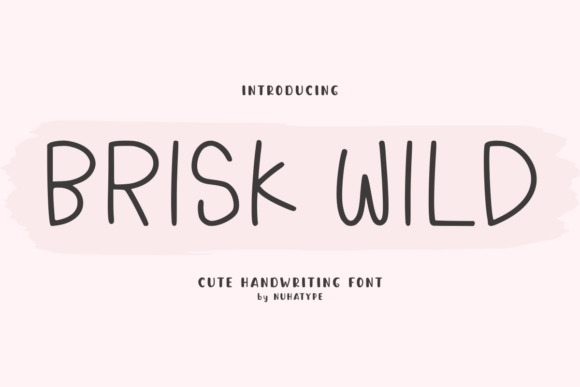
Embracing the Joy of Handwritten Design
Have you ever been working on a creative project, and the perfect font just slips away from you? You envision a warm, friendly, and natural look that captures the essence of your handmade masterpiece. That’s where the Brisk Wild Font comes in – a beautiful sans serif handwriting font that’s designed to evoke a sense of softness and friendliness.
Brisk Wild Font is a game-changer for designers who crave that handcrafted feeling in their projects. Whether you’re crafting planners, stickers, or kids’ worksheets, this font brings a touch of warmth and personality that’s sure to delight. Its simple strokes and smooth curves make it a breeze to cut using Cricut and Silhouette, making it a valuable addition to any designer’s toolkit.
Key Features of Brisk Wild Font
- Font Family: Brisk Wild is a modern sans-serif font family designed for digital use.
- Unique Characteristics: Brisk Wild features a unique blend of geometric and organic elements, resulting in a distinctive and modern aesthetic.
Brisk Wild Font Review
I recently had the chance to work with the Brisk Wild font, and I have to say, it’s been an interesting experience. Here’s my honest take on this font.
- The unique blend of modern and wild elements makes Brisk Wild perfect for designs that need a bit of edge.
- The font is highly legible, even at smaller sizes, which is a must for any design.
- The font is highly customizable, allowing you to tweak the style to fit your design needs.
- The font may not be suitable for very formal or traditional designs, as it has a bit of a rough edge.
- The wild elements can sometimes be distracting, so be sure to use them sparingly.
- The font may not be as polished as some other options, but this can also be seen as a plus for those who like a bit of roughness.
Overall, I think Brisk Wild is a great choice for designers who want to add a bit of personality to their designs. It’s not perfect, but it’s definitely a unique and interesting option. With a bit of care and consideration, Brisk Wild can be a real showstopper.
Tips for Getting the Most Out of Brisk Wild Font
To get the most out of Brisk Wild Font, use it in bold and eye-catching ways, such as:
- Accent text and highlights
- Emphasis and call-to-actions
Brisk Wild Font is commonly used in:
- Marketing materials (brochures, flyers, posters)
- Social media graphics and posts
- Event branding and signage
Alternatives to Brisk Wild Font
Great Vibes is a beautiful, elegant script font perfect for creating a sense of sophistication and luxury. It is ideal for use in branding, packaging, and advertising materials where a high-end feel is desired.
Compared to Brisk Wild Font, Great Vibes has a more refined and polished look, making it suitable for formal applications. While Brisk Wild Font has a wild and playful feel, Great Vibes is more suited for elegant and sophisticated designs.
Dancing Script is a fun and energetic script font perfect for creating a sense of movement and playfulness. It is ideal for use in digital design, social media, and advertising materials where a dynamic feel is desired.
Compared to Brisk Wild Font, Dancing Script has a more dynamic and energetic feel, making it suitable for applications that require a sense of movement and playfulness. While Brisk Wild Font has a wild and unpredictable feel, Dancing Script is more suited for designs that require a sense of fun and energy.
Pacifico is a beautiful, elegant script font with a relaxed and casual feel. It is ideal for use in branding, packaging, and advertising materials where a sense of calm and serenity is desired.